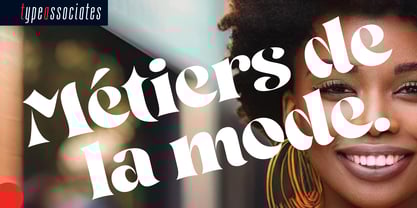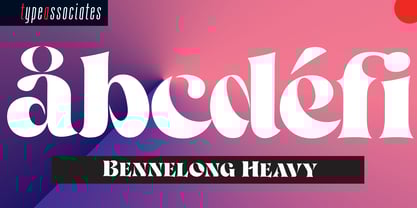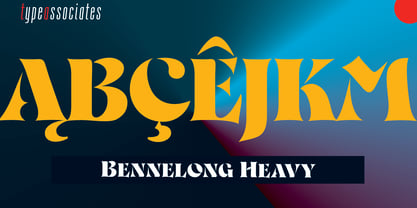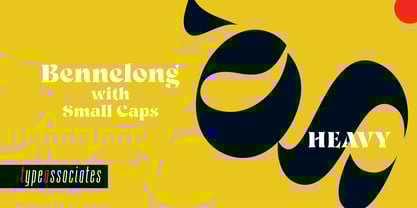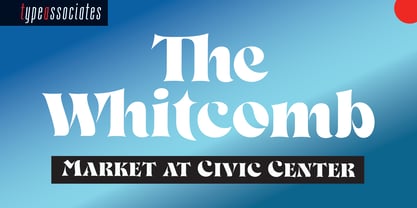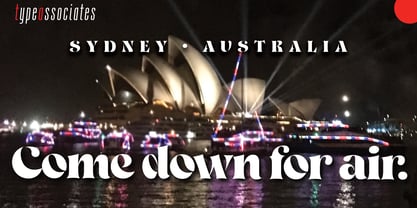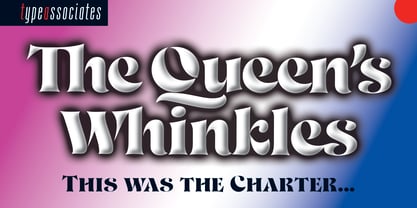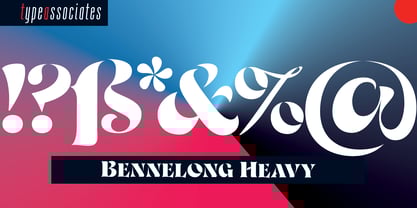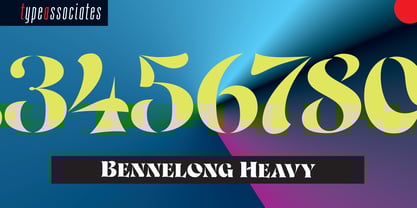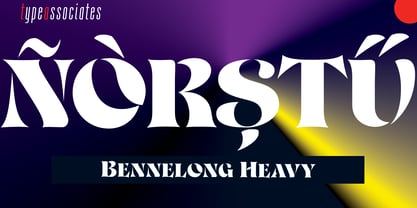
Bennelong
by Type Associates
The Bennelong Font Family was designed by Russell Bean and published by Type Associates. Bennelong contains 1 styles. More about this family
Bennelong Heavy with Small Caps emerged as an extension of a lettering exercise that began several years ago. True – it has taken its time to morph into a font.
Its spiky serifs and cheeky terminals exude an atmosphere of class, a feeling of elegance and sophistication, while avoiding the overused.
Bennelong takes its name from a pioneer of the early days of Australia’s colonisation. An indigenous man who became an interlocutor, conducting dialogue between the European settlers and his tribespeople around Sydney Harbour. His name was also given to the site of one of our most famous landmarks – Sydney Opera House.
Bennelong Heavy is supported by a full suite of accented glyphs serving 126 Latin-based languages together with a small-caps suite for added versatility.
You can use Bennelong for semi-display size text through to full-on poster headings. Its playful and unusual design attributes make it suitable for a diverse range of subject matter – food, beverage, fashion, cosmetics, cinema, video, wordmarks, book jackets, album covers and a whole lot more. With its generous x-height, high contrast and quirky design features Bennelong is sure to draw attention, please crowds and sell products.